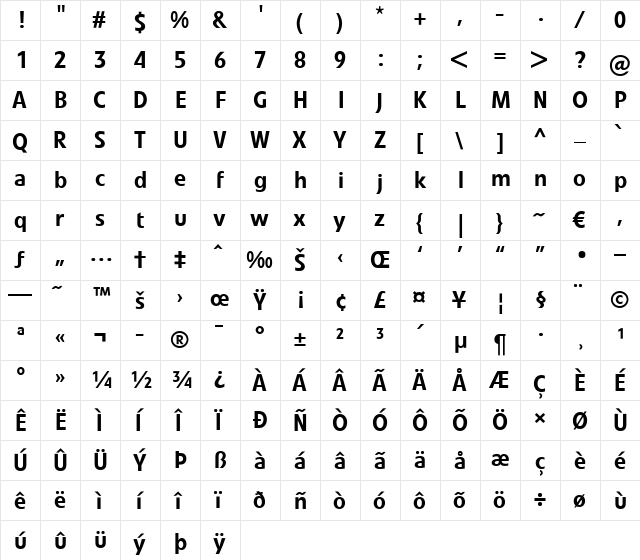
LTVeto Medium Regular
| Designer | Marco Ganz |
Design Context for LTVeto Medium Typeface
LTVeto Medium offers clean, dependable letterforms without strong stylistic allegiance, making it a practical choice for designers who need flexibility.
Pro Tip: Use LTVeto Medium in both headline and body roles to test its range before committing to a single application.